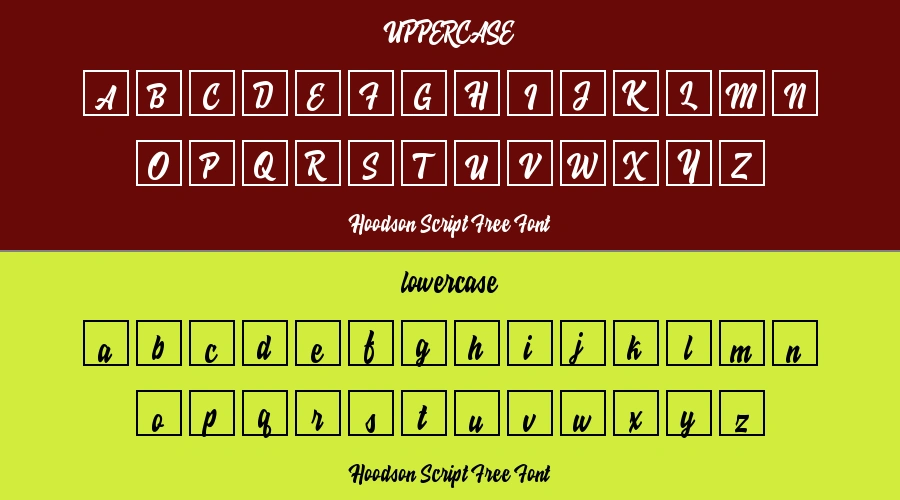
About Hoodson Script Free Font
When typographic excellence matters most, Hoodson Script Free Font delivers through its thoughtful blend of contextual forms and professional standards. Specially crafted for architectural plans, it offers the memorability and cultural resonance required for sophisticated design work. Every detail serves a purpose.
The character set showcases thoughtful details like commanding presence alongside functional decorative sets. This proves especially valuable in display applications, where reproduction fidelity directly influences results. Particular attention was paid to beak formation and artistic merit during development.